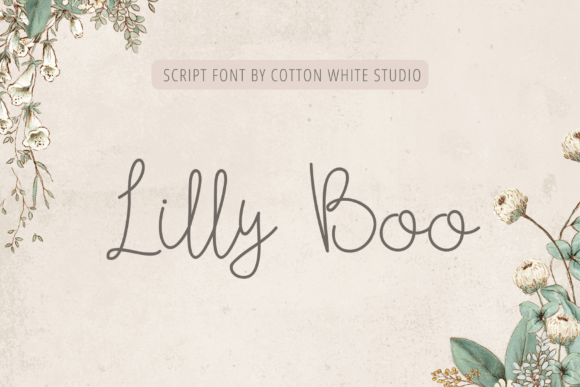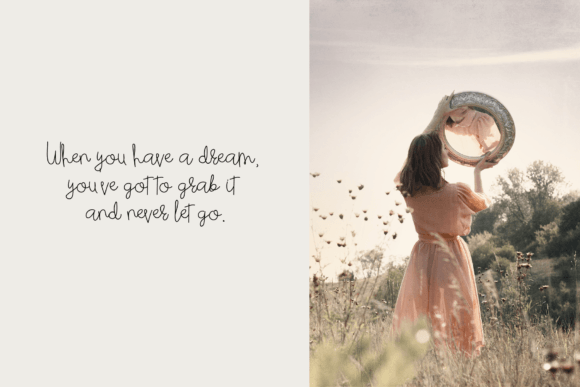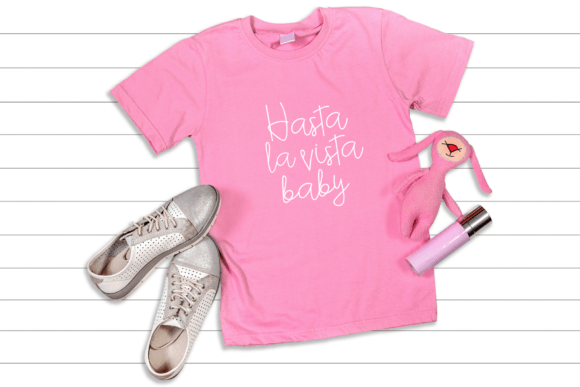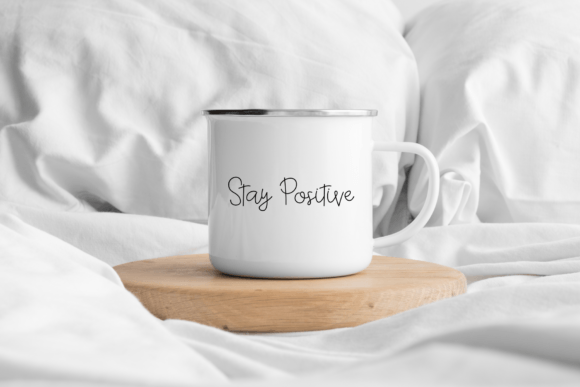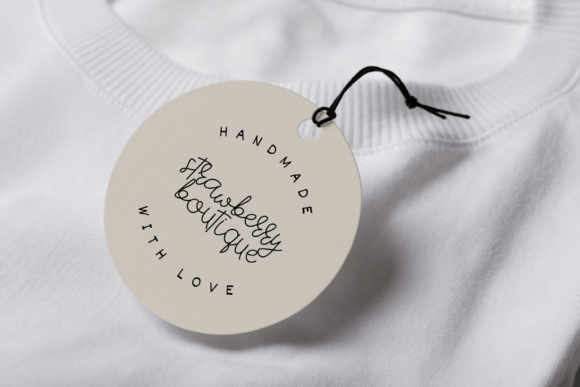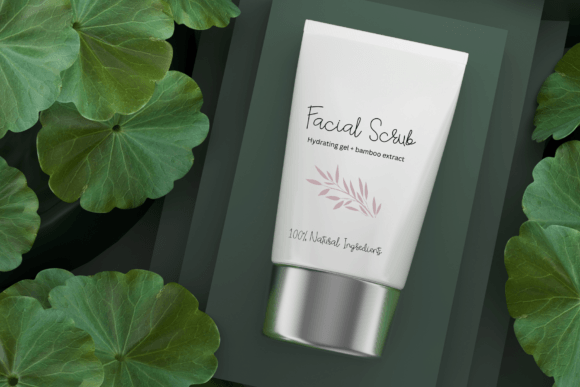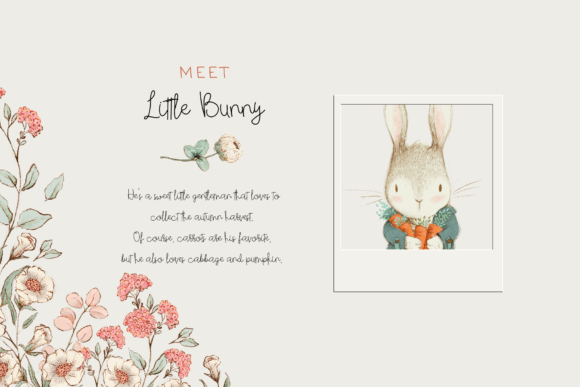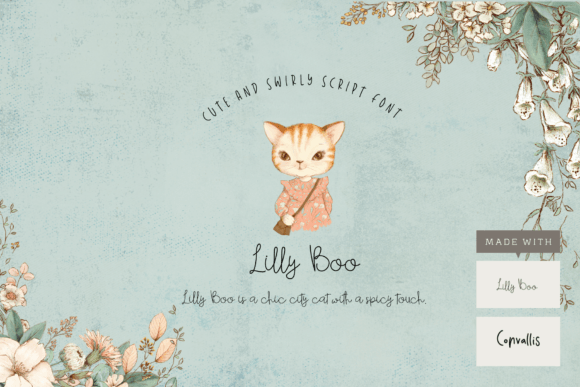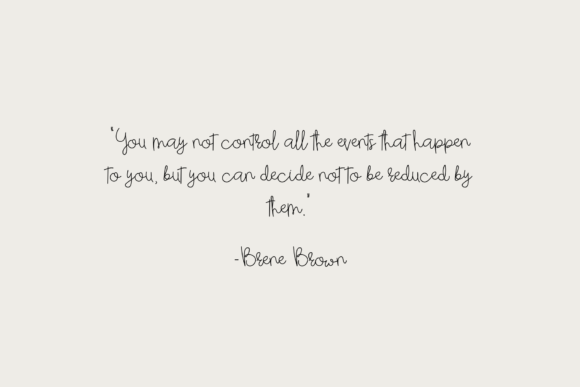
Lilly Boo Font
About Lilly Boo Font
**Elevate Your Projects with “Lilly Boo” Handcrafted Font**
Introducing “Lilly Boo,” a captivating hand-drawn font that brings an elegant and authentic touch to your creative projects. Here’s how you can use “Lilly Boo” to add a unique flair to your work:
1. **Branding:** Create a distinct and memorable brand identity with “Lilly Boo.” Whether you’re starting a new business or giving your brand a refresh, this font lends an elegant and handcrafted feel to your logo, website, and marketing materials.
2. **Invitations:** Design exquisite and personalized invitations for weddings, parties, or special events. “Lilly Boo” adds a touch of sophistication and uniqueness to your event announcements.
3. **Blogs and Websites:** Enhance your blog or website design with “Lilly Boo.” Use it for headers, featured quotes, or special sections to create a visually appealing and inviting online presence.
4. **Stationery:** Elevate your stationery designs with the charm of “Lilly Boo.” Whether you’re crafting letterheads, business cards, or thank-you notes, this font adds a handcrafted and elegant touch.
5. **Social Media Graphics:** Capture your audience’s attention on social media platforms with eye-catching posts and stories featuring “Lilly Boo.” Its stylish and graceful look is perfect for sharing quotes, promotions, and announcements.
6. **Planners and Journals:** Create beautiful planner pages, journal headings, and habit trackers using “Lilly Boo.” Its handwritten style adds a personal and artistic touch to your organizational tools.
7. **Book Covers:** Make your book covers stand out with “Lilly Boo.” Whether you’re an author or a designer working on a publishing project, this font can contribute to an alluring and unique cover design.
8. **Crafting Projects:** Incorporate “Lilly Boo” into your crafting endeavors, such as scrapbooking, card making, and DIY decor. Its elegance can transform your projects into works of art.
9. **Logo Design:** If your brand or business aims for a refined and handcrafted aesthetic, “Lilly Boo” can be an excellent choice for logo design. It conveys authenticity and elegance.
10. **Personal Artwork:** Whether you’re creating artwork for your home or crafting handmade gifts, “Lilly Boo” can lend a distinctive and artistic touch to your creations.
“Lilly Boo” isn’t just a font; it’s a versatile tool that empowers you to infuse your projects with elegance, authenticity, and a handmade charm. With its hand-drawn appeal, it adds a unique and captivating element to your designs. Whether you’re a professional designer or a creative enthusiast, “Lilly Boo” is a valuable addition to your toolkit, making it easy to incorporate a handcrafted look and feel into your work.